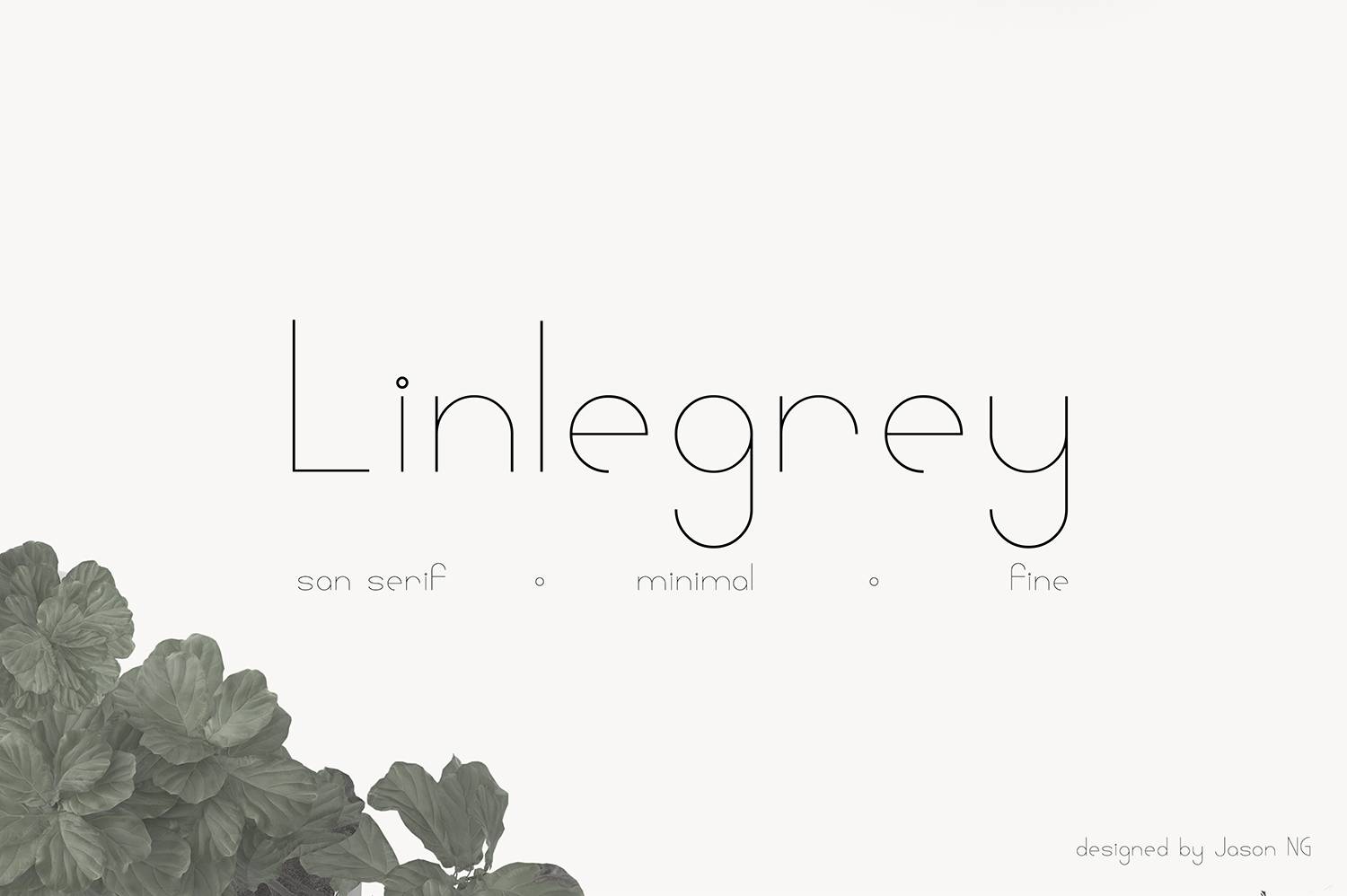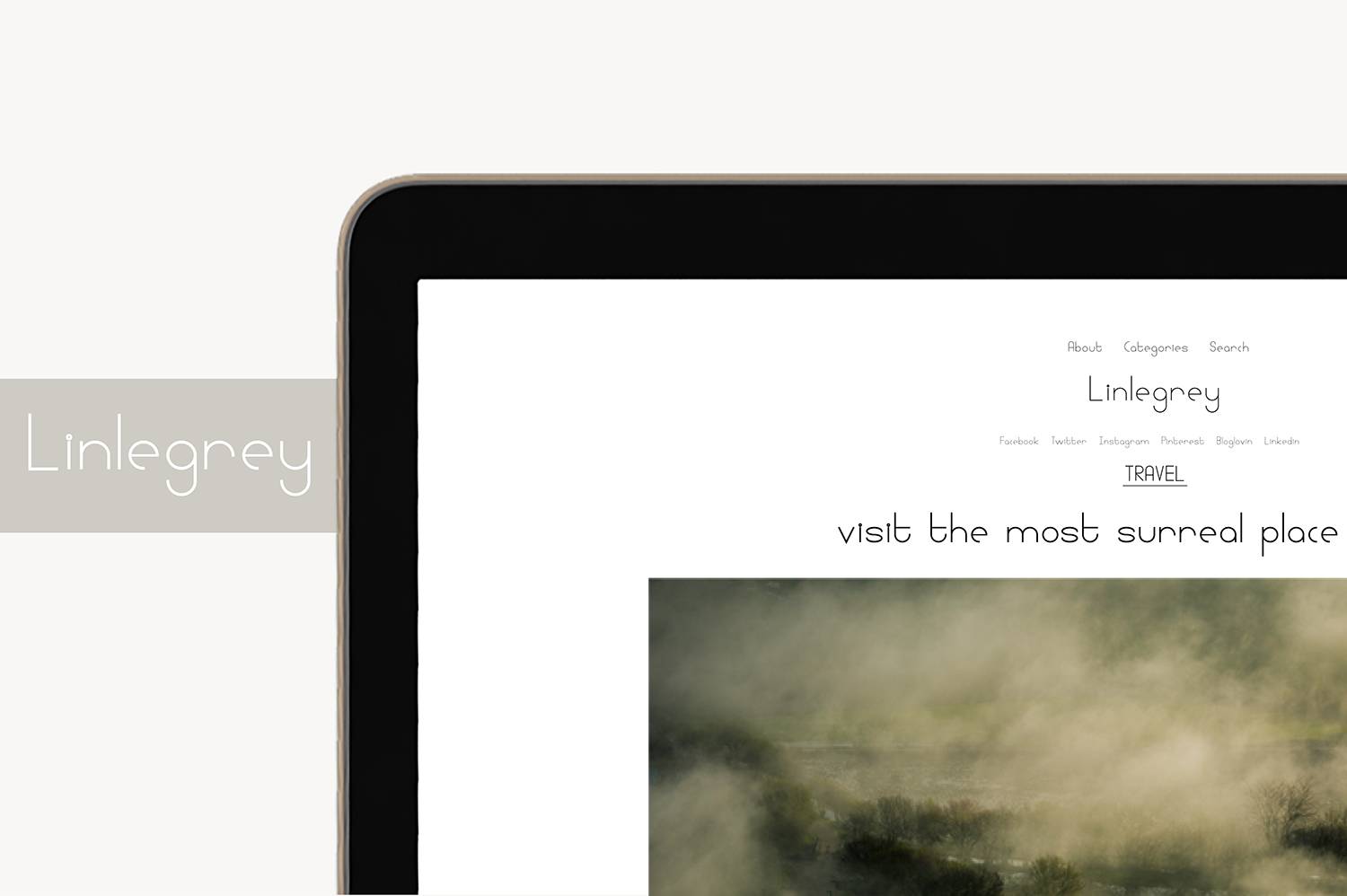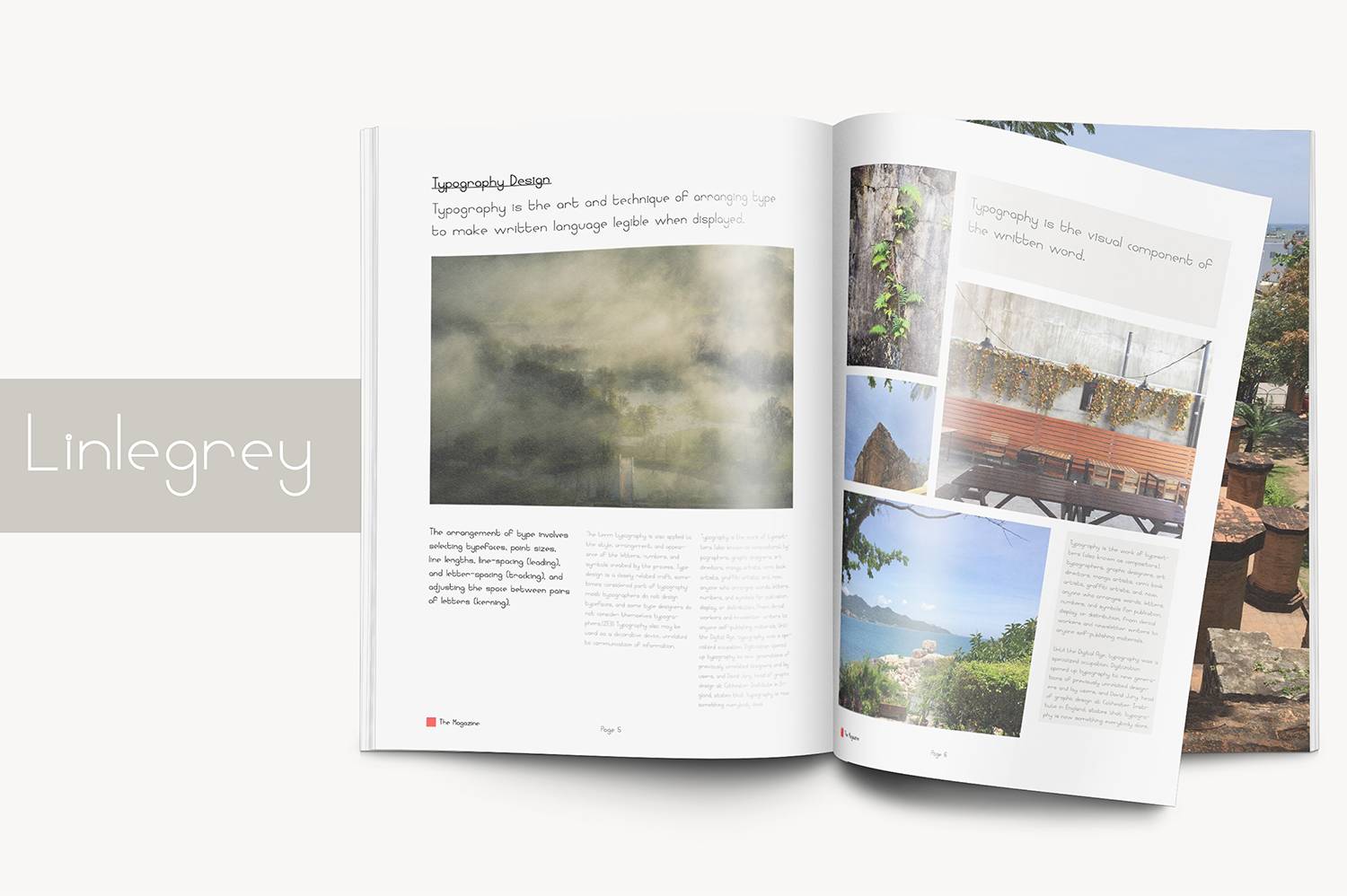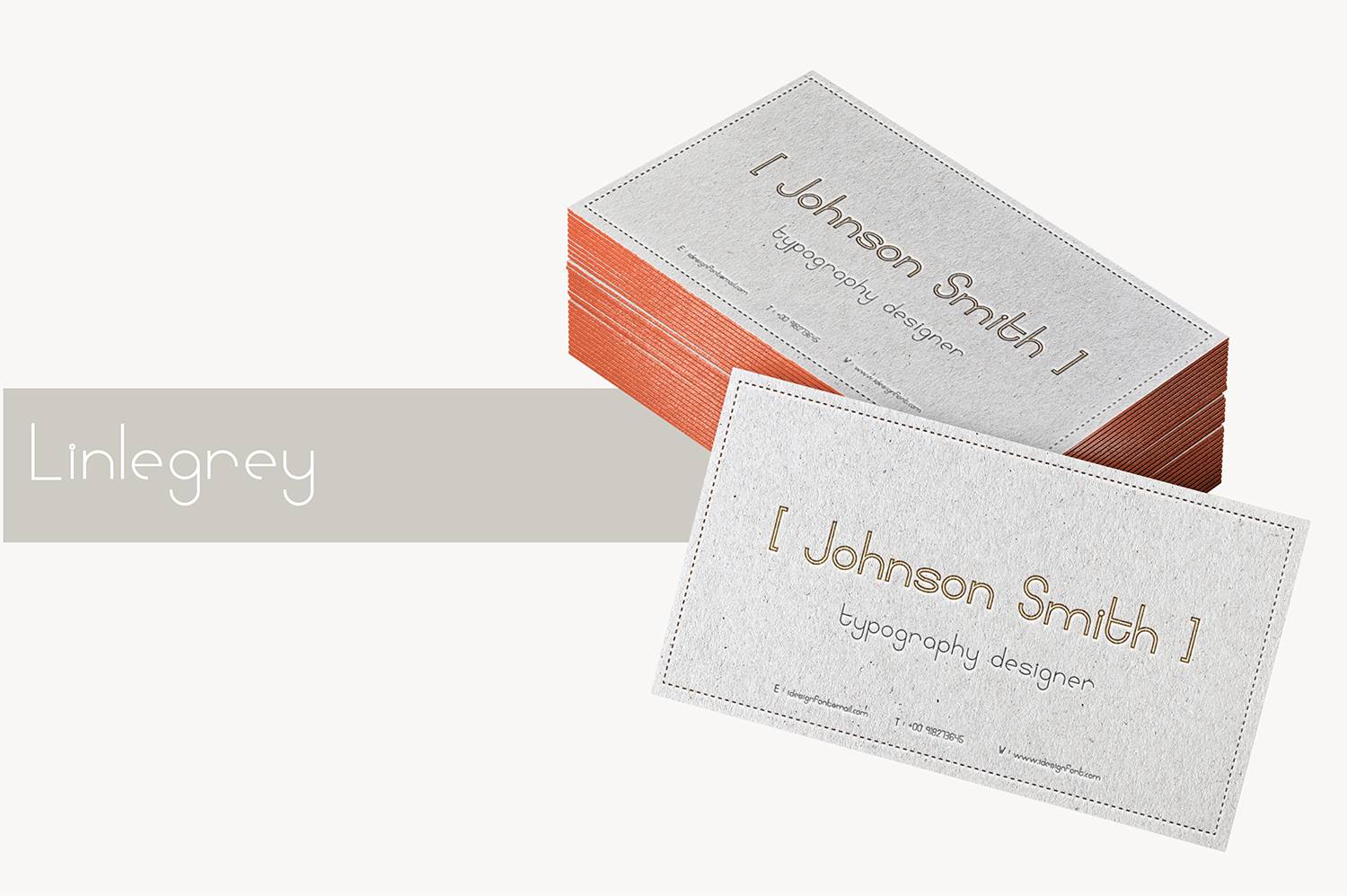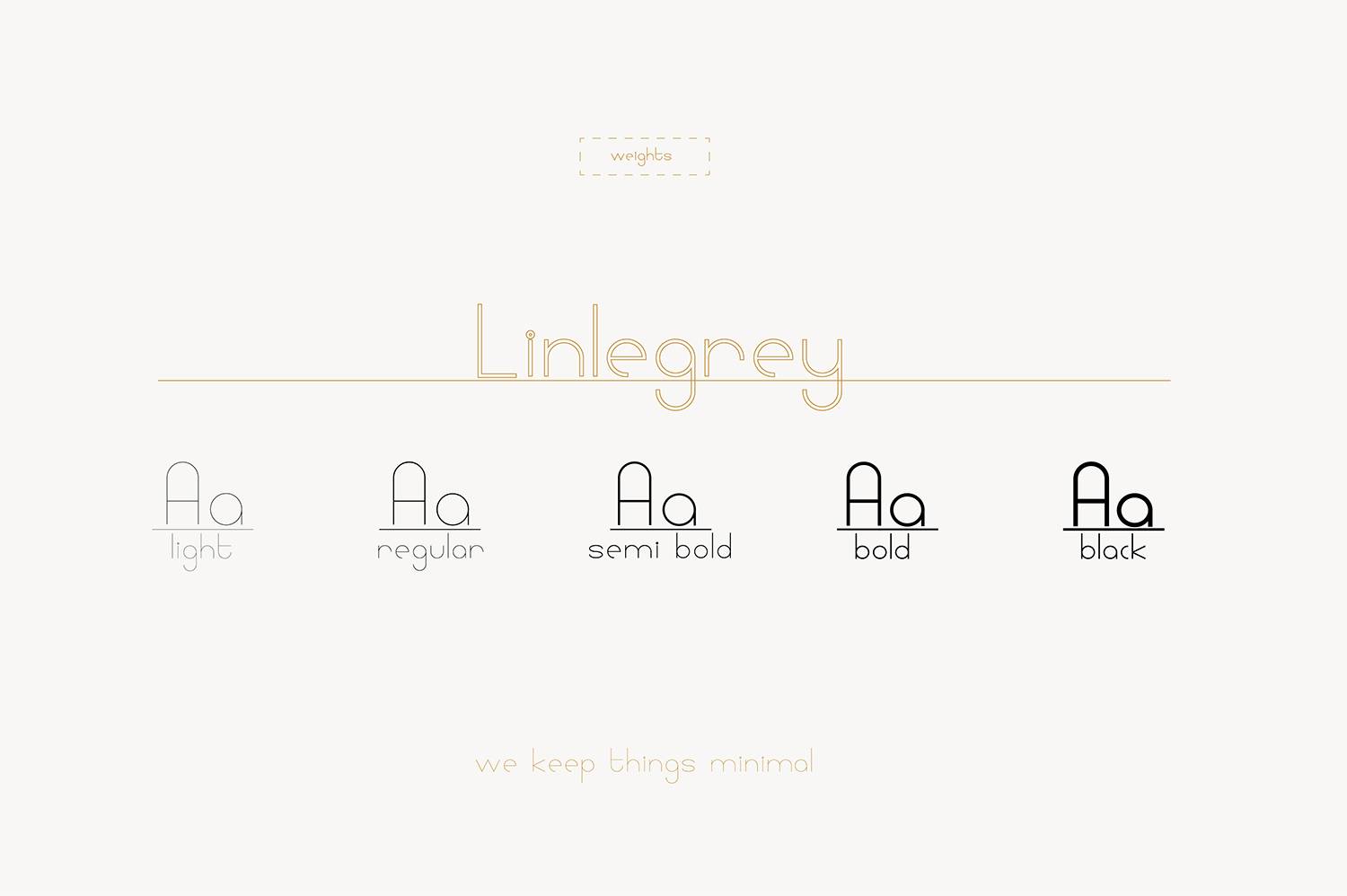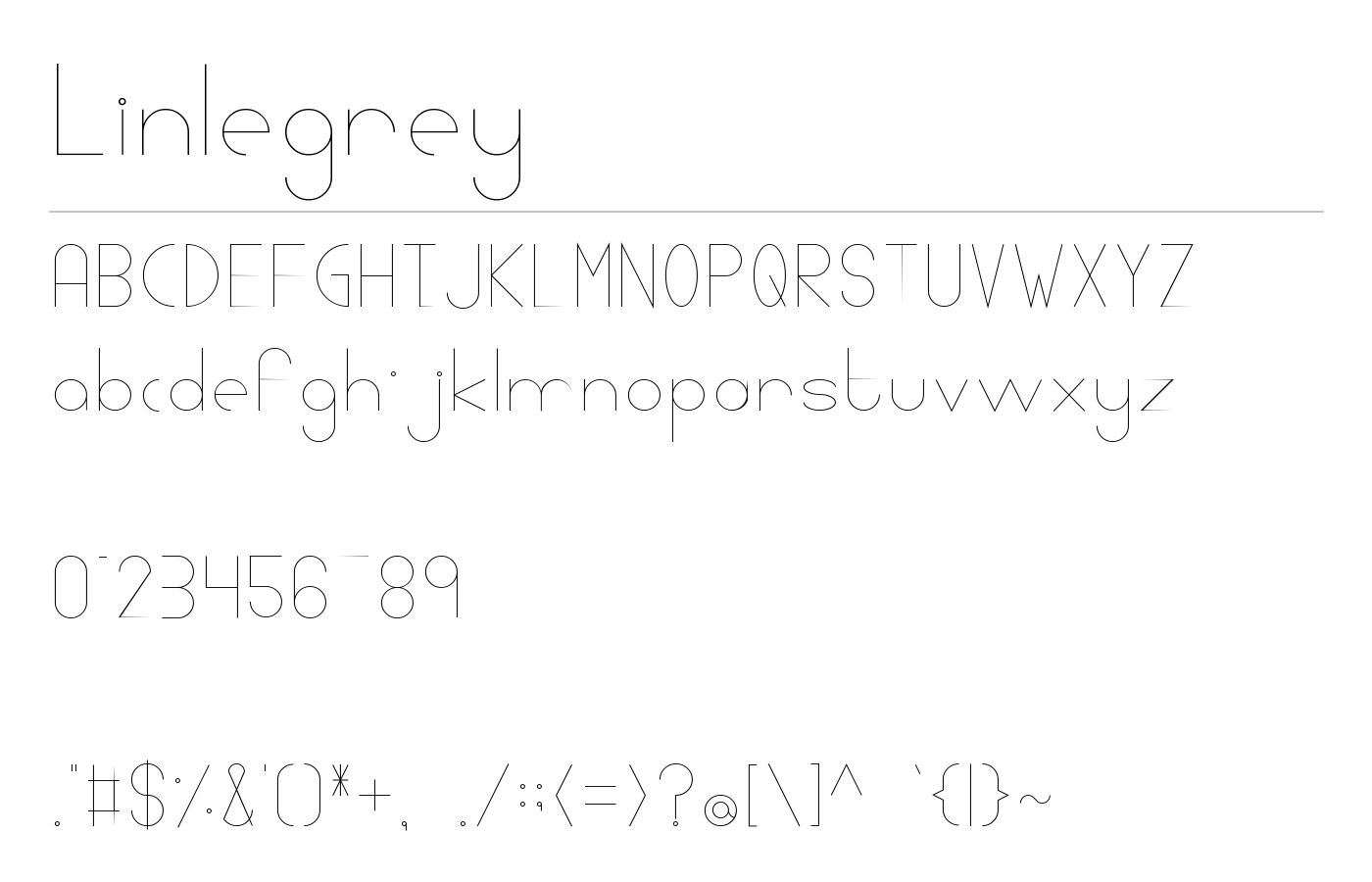
Linlegrey is a delicate, ultra-thin sans serif font with a modern and minimalist aesthetic. Its tall, narrow letterforms feature clean, geometric lines and a consistent light weight, giving it an airy and elegant feel perfect for contemporary design projects. This font works well for stylish branding, editorial headlines, and creative digital content where a refined, sophisticated look is desired.
Linlegrey Font
About Linlegrey Font